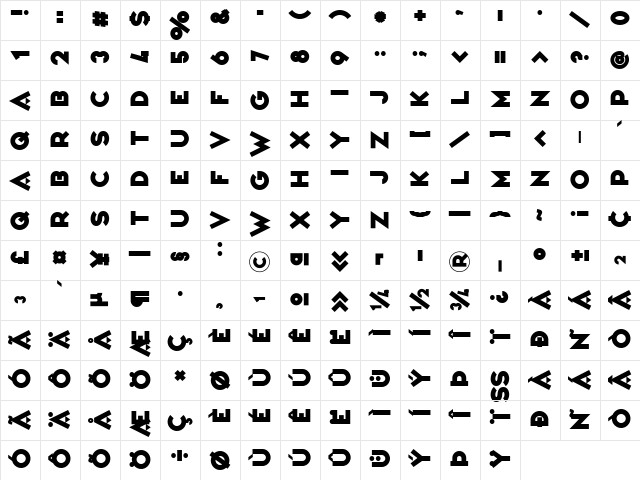
Variet頉karier Regular
| Foundry | Peter Wiegel |
| Designer | Peter Wiegel |
Design Context for Variet頉karier Typeface
Variet頉karier offers clean, dependable letterforms without strong stylistic allegiance, making it a practical choice for designers who need flexibility.